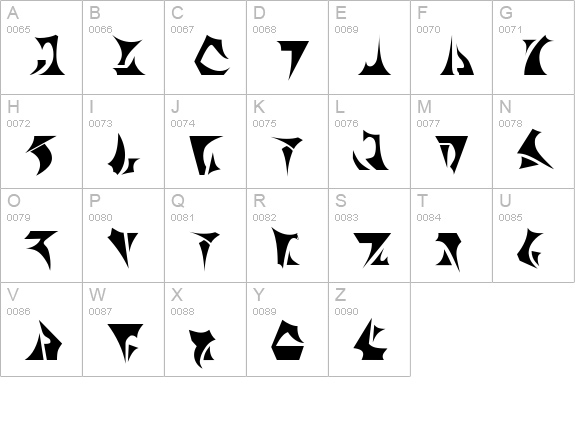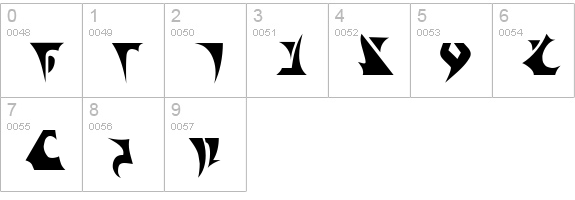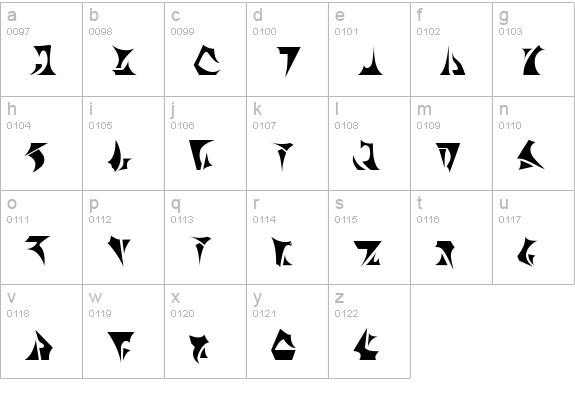
BernyKlingon Font Details
The BernyKlingon font is a bold and futuristic typeface inspired by the iconic Klingon language from the Star Trek universe. With its sharp edges and distinctive letterforms, this font is perfect for creating eye-catching designs that exude strength and power. Whether you're a fan of science fiction or simply looking to add a unique touch to your projects, BernyKlingon is sure to make a bold statement. Best of all, BernyKlingon is available for free download at FontsMarket.com. This means you can easily access this striking font and use it in your personal and commercial projects without any cost. So why wait? Download BernyKlingon today and bring a touch of intergalactic flair to your designs.